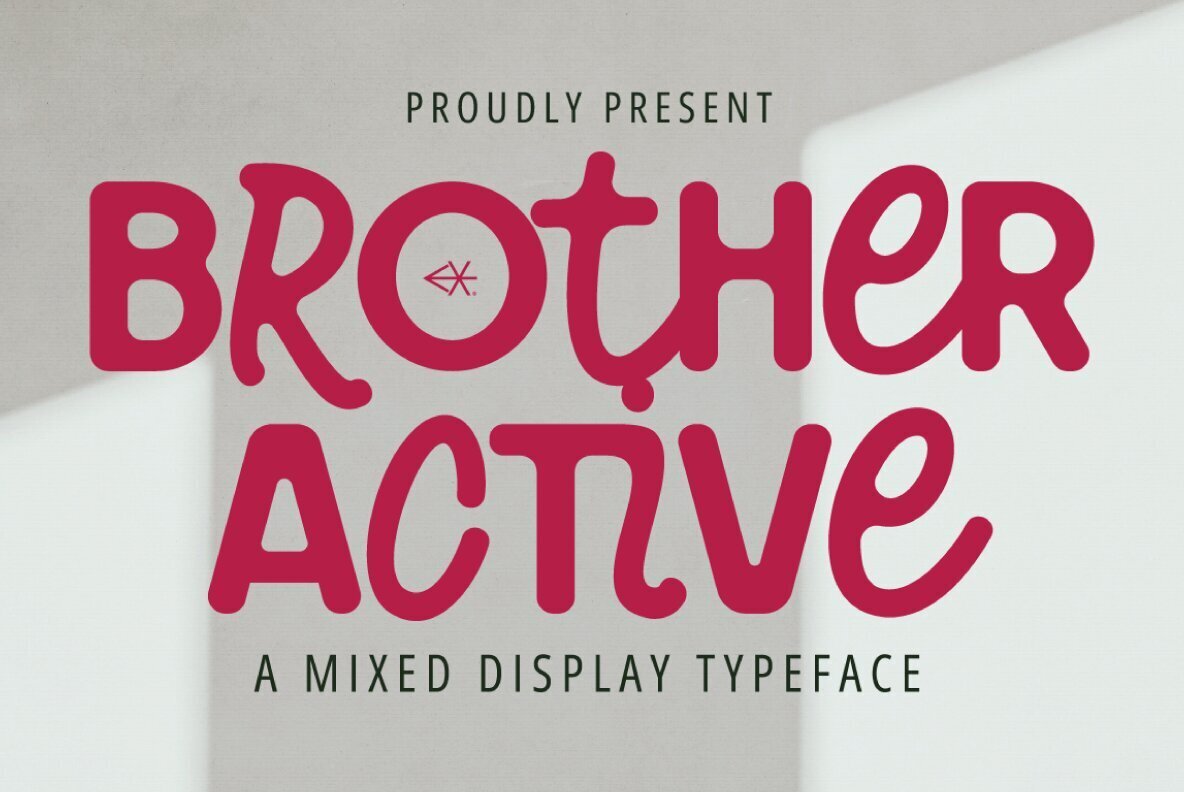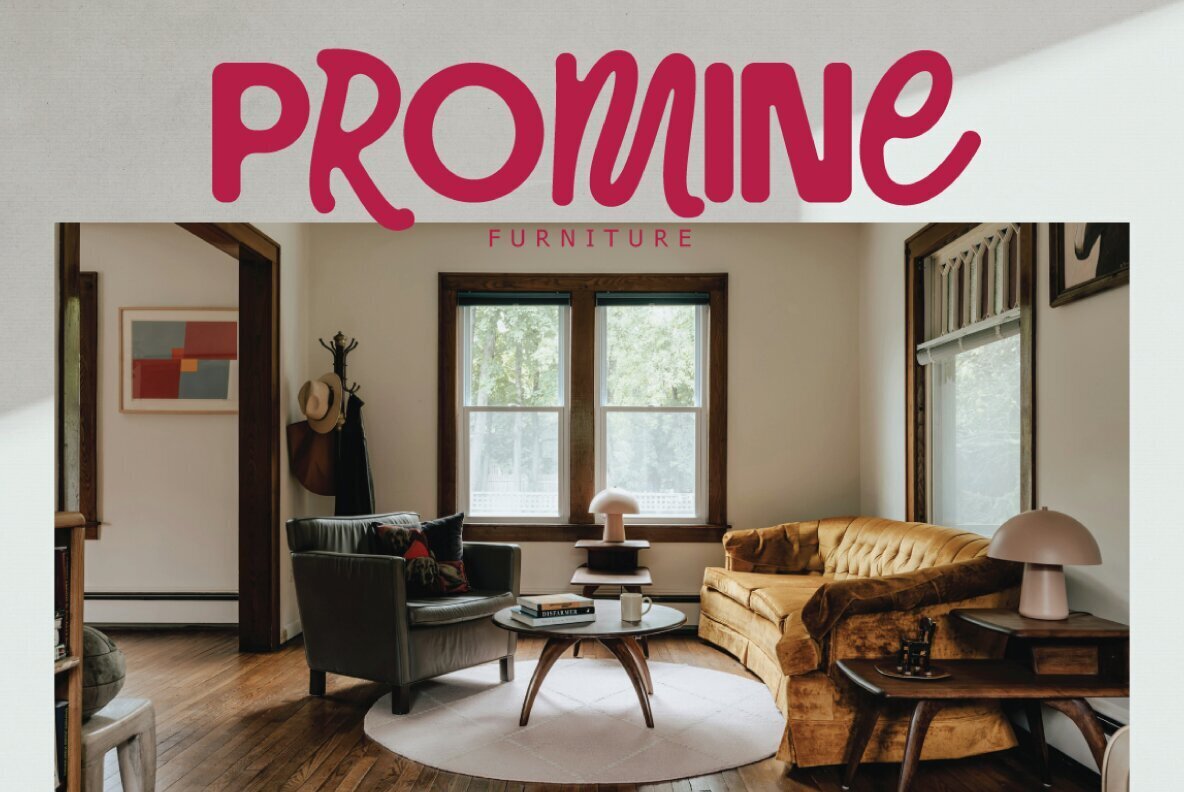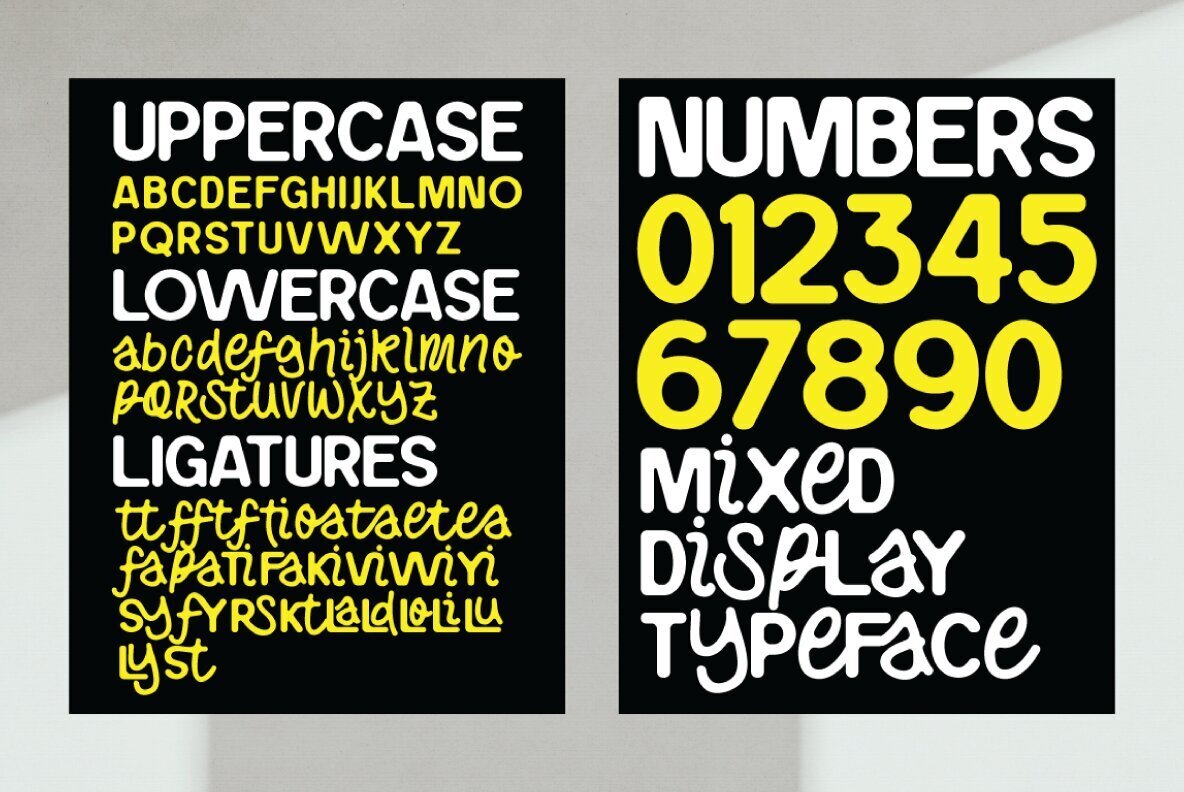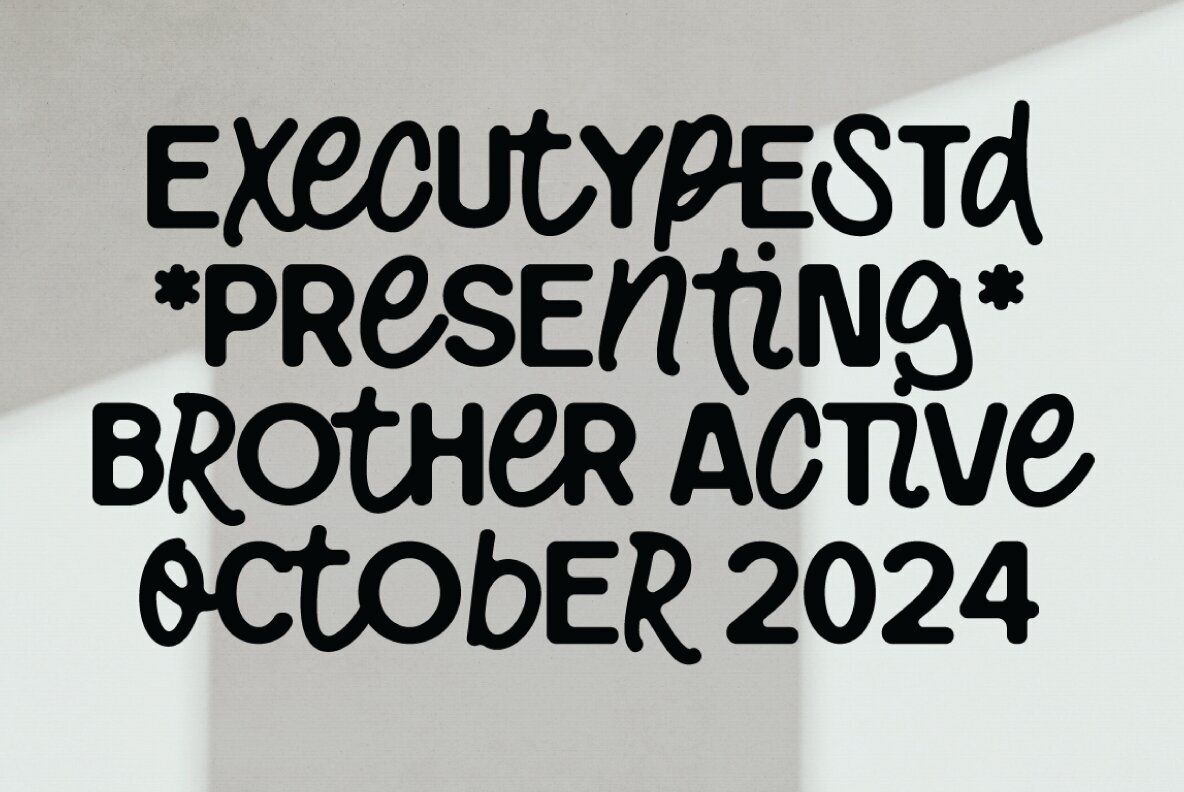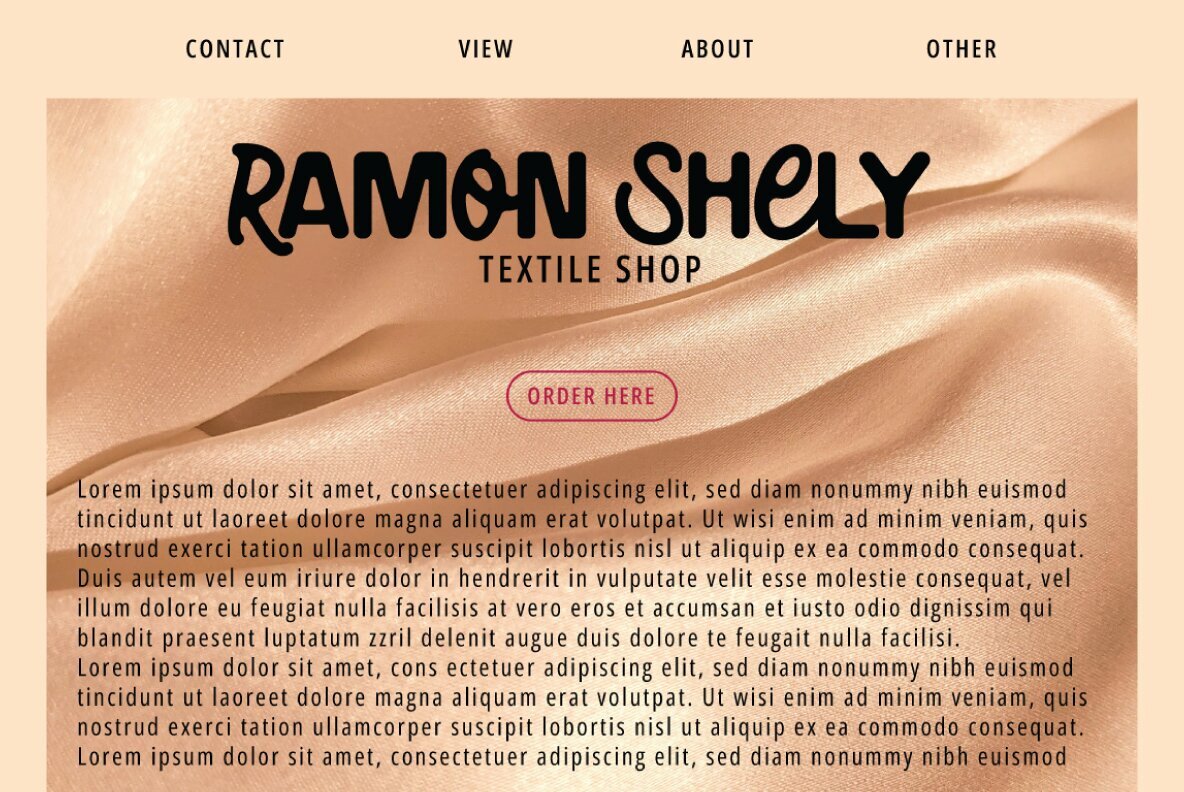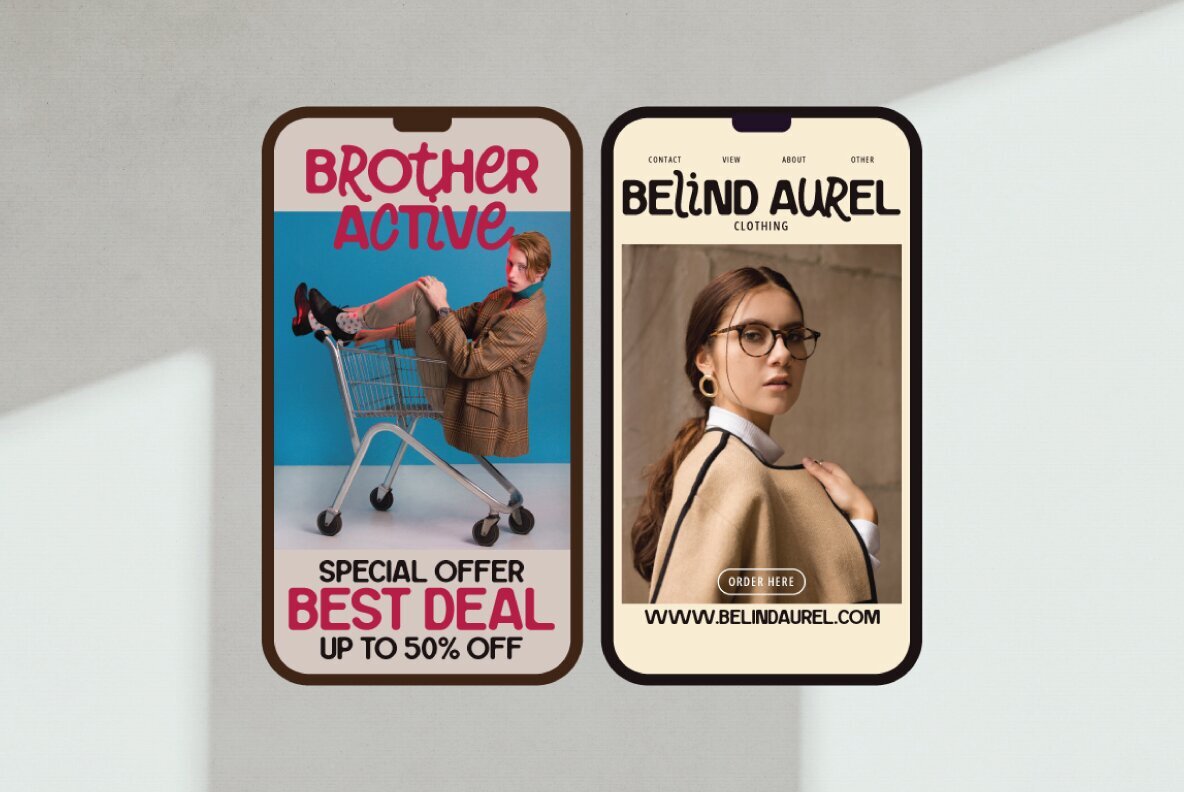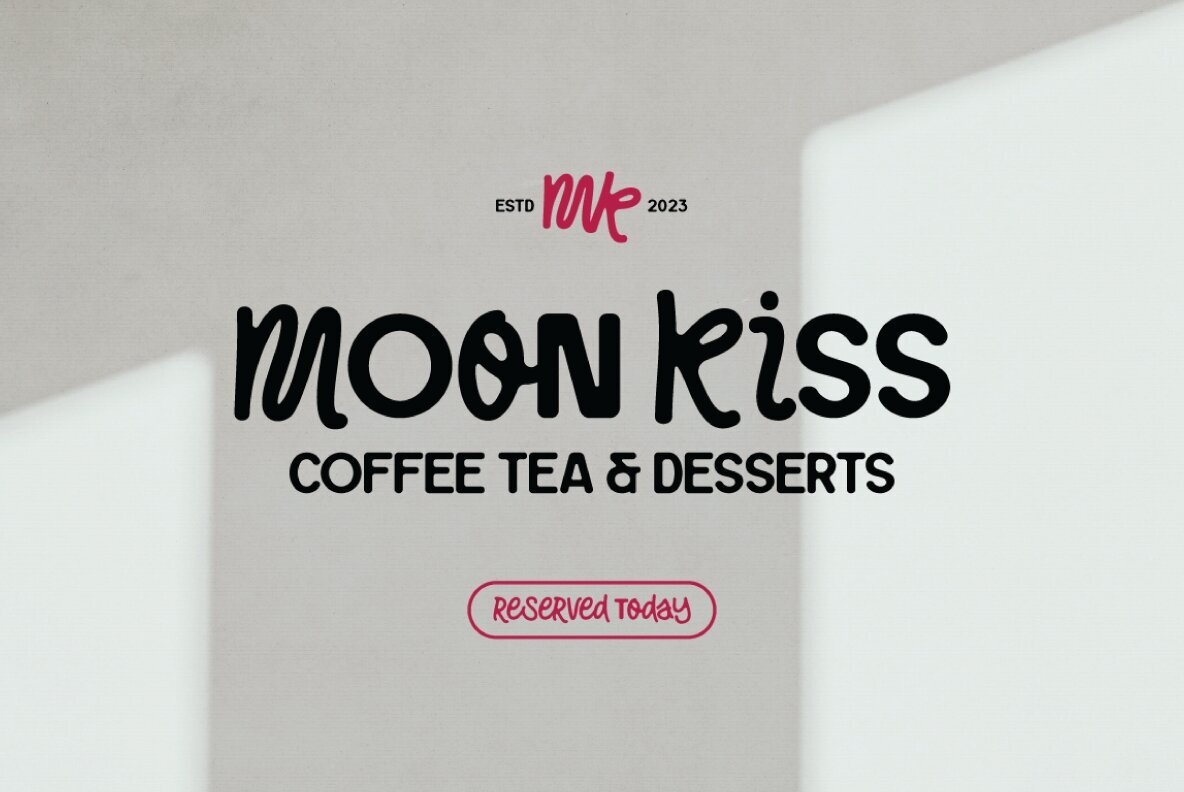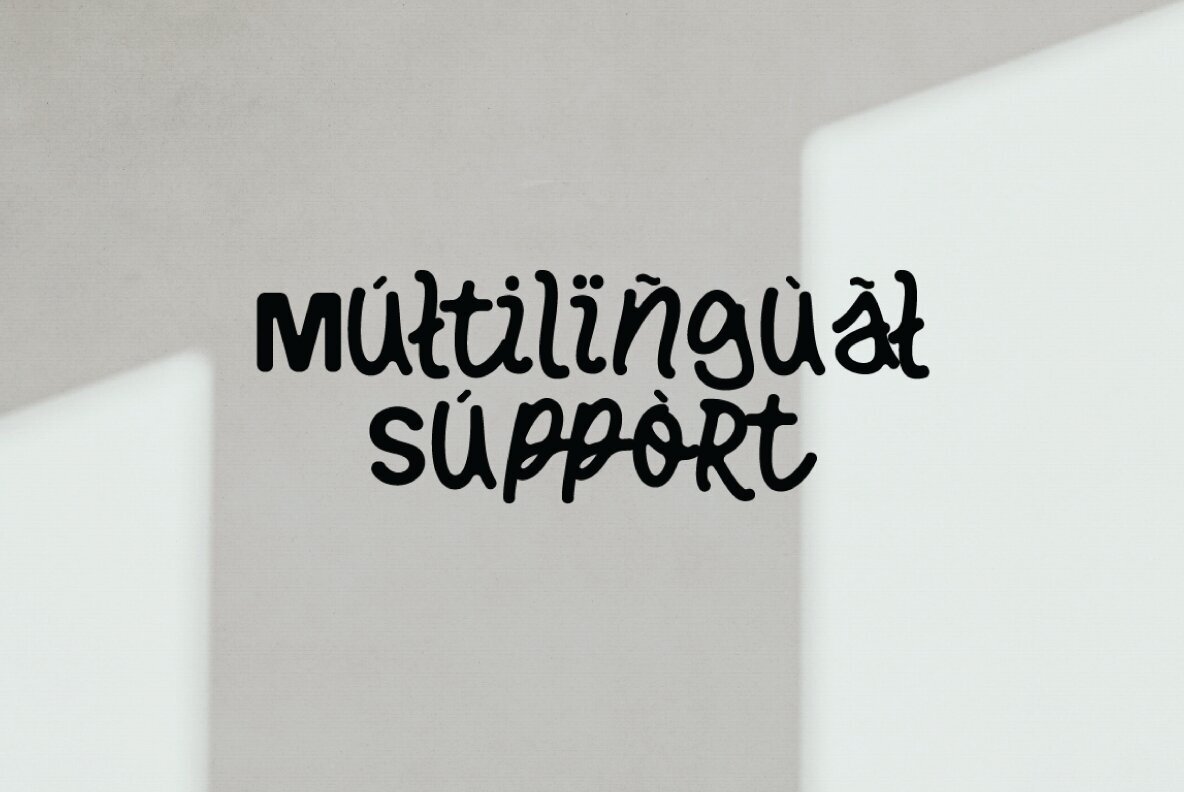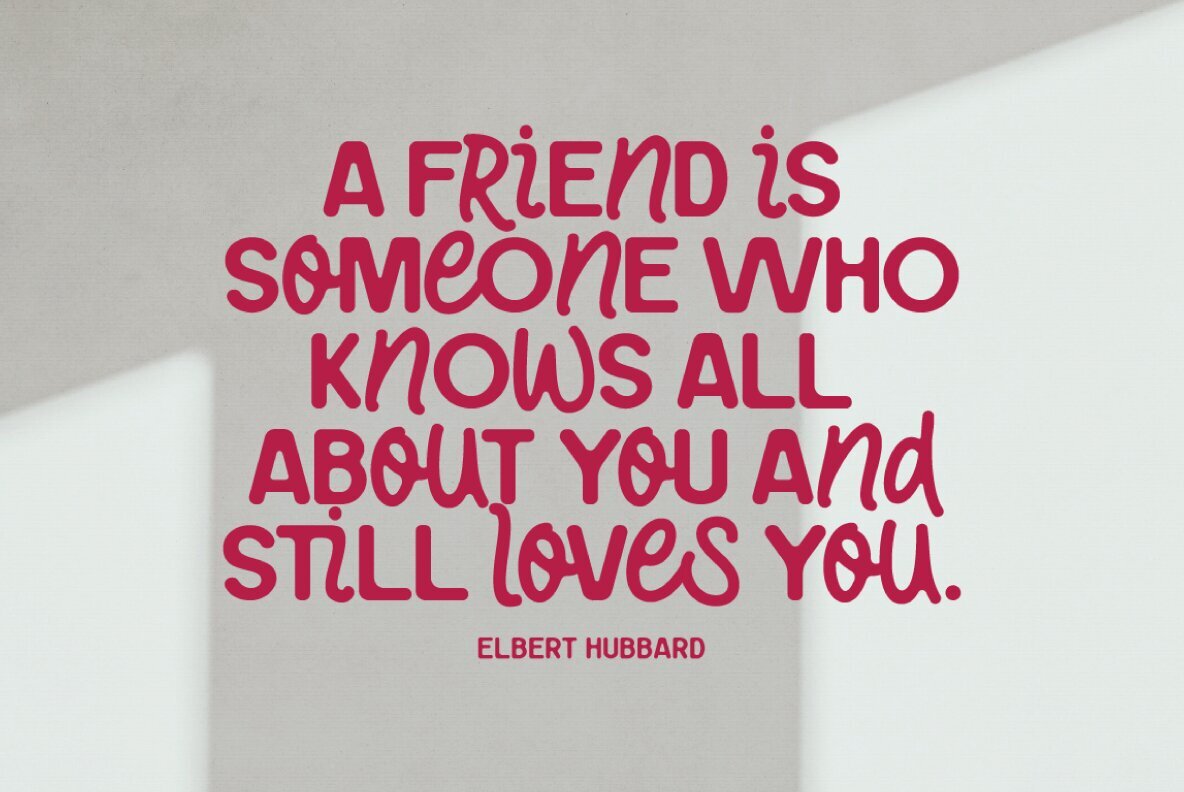
Brother Active Font
Brother Active Display
Brother Active Display Font introduces a casual sans serif style that combines bold structure with playful curves. Its modern design makes an immediate visual impact, offering a distinctive look for creative projects. The unique letterforms bring both confidence and versatility to your work. Brother Active stands out in logos, advertisements, magazine layouts, stationery, product designs, business projects, and branding applications. The font delivers clarity and style, adding a refined touch wherever it’s used. With its clean lines and expressive shapes, Brother Active Display Font is designed for those who value both functionality and visual appeal in typography.Brother Active Display Font